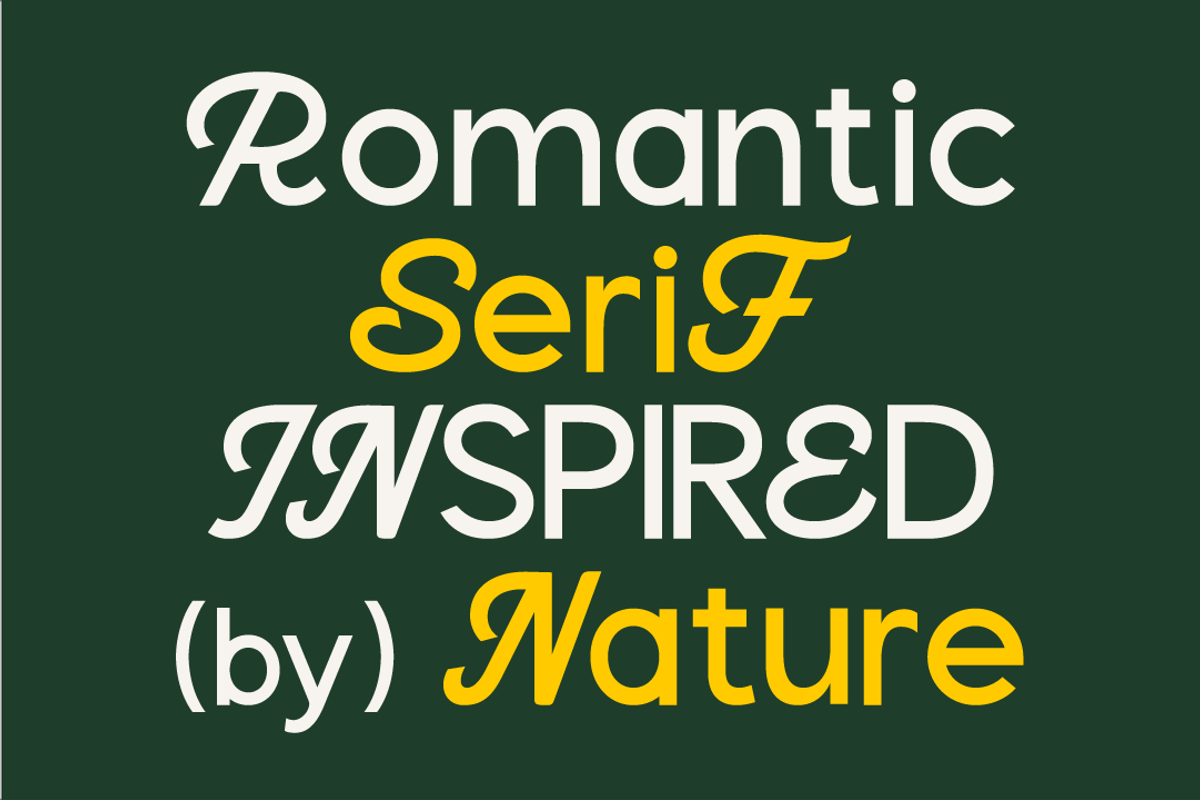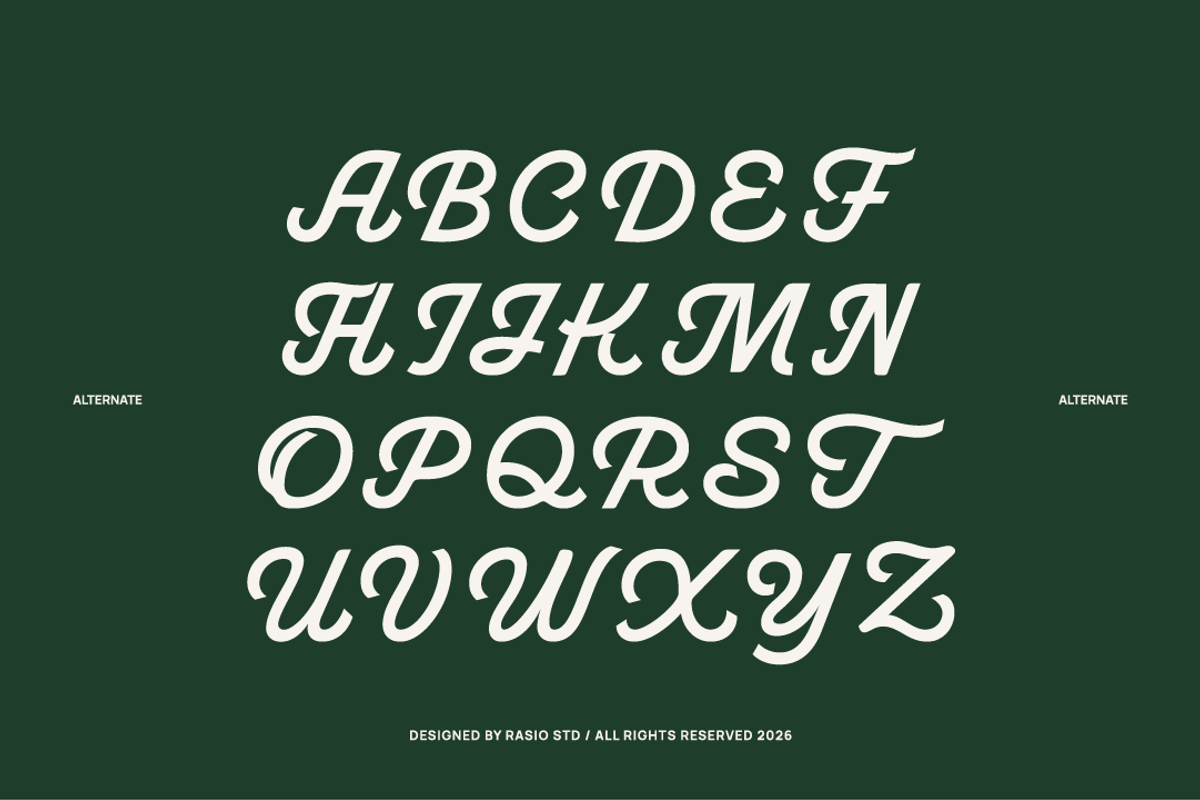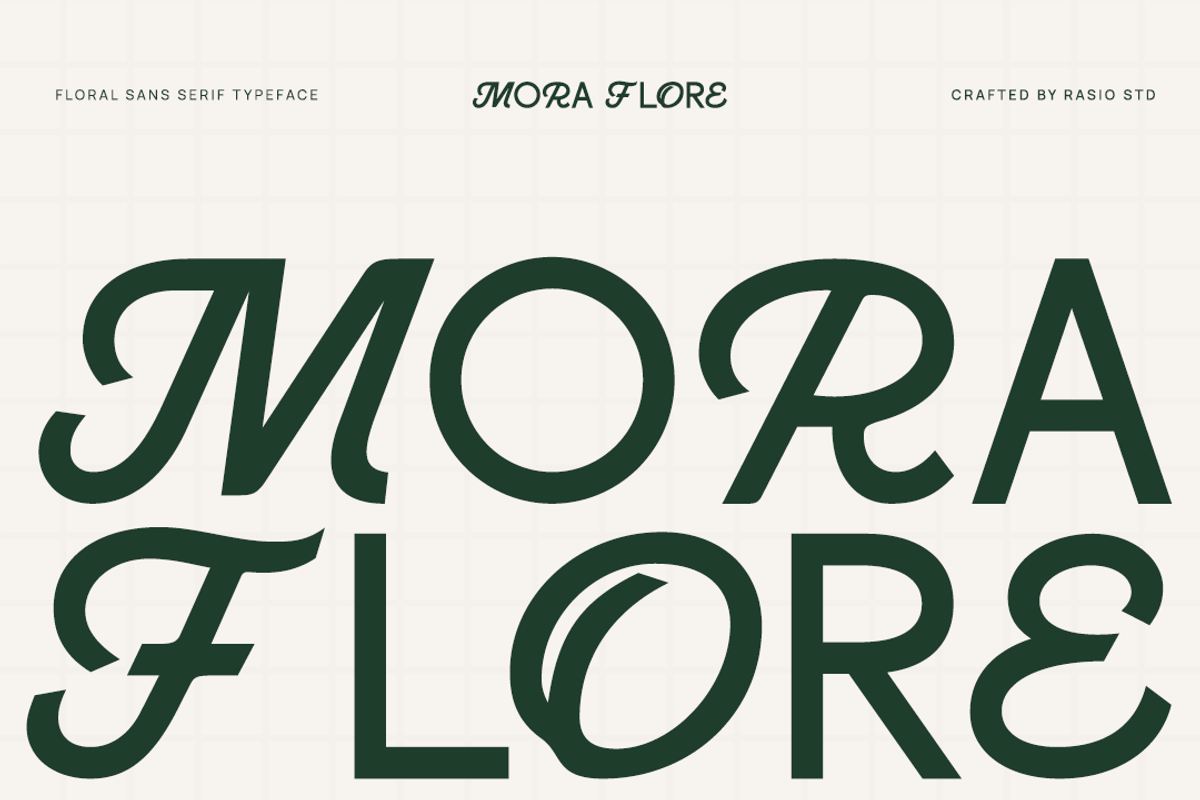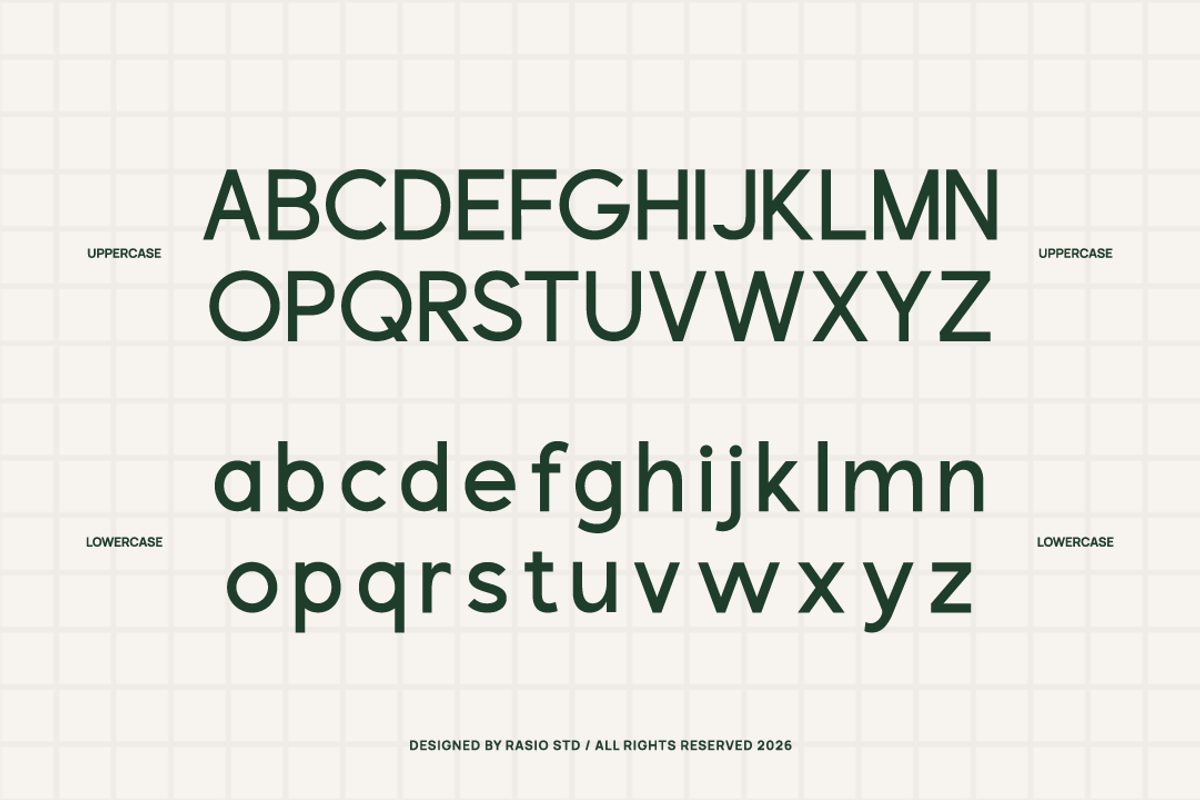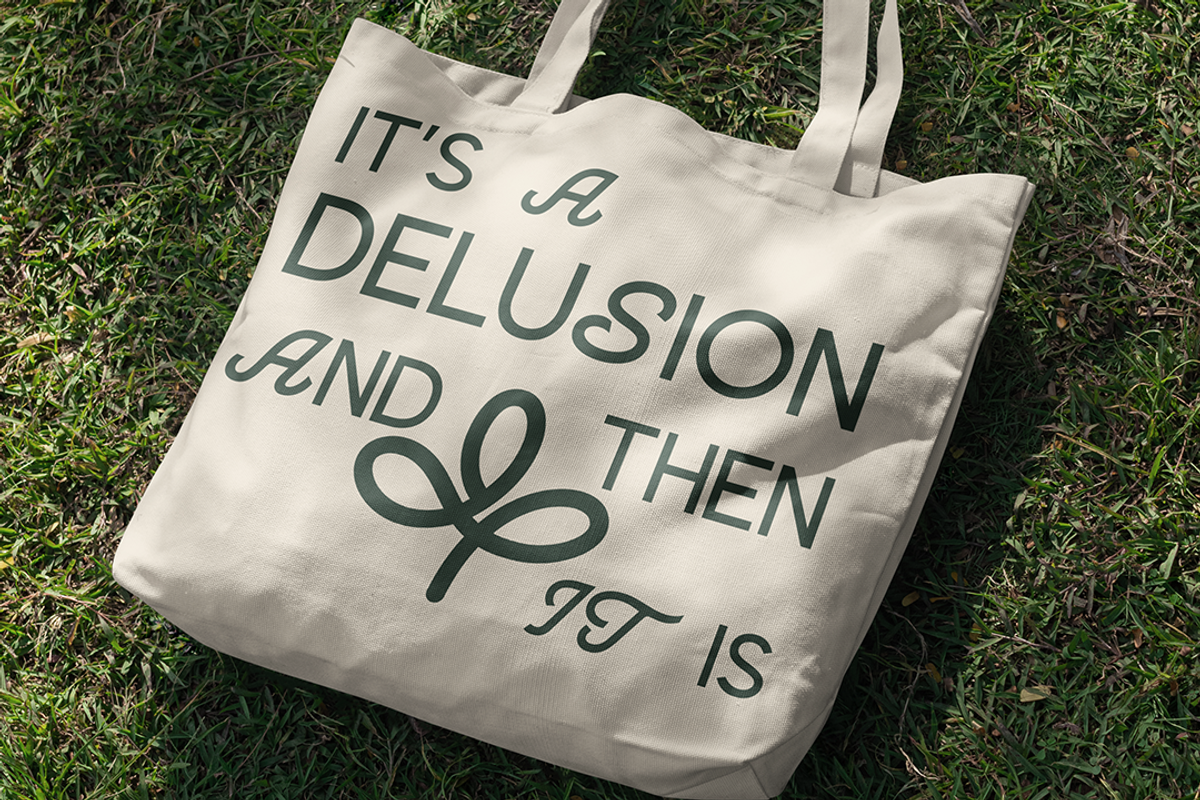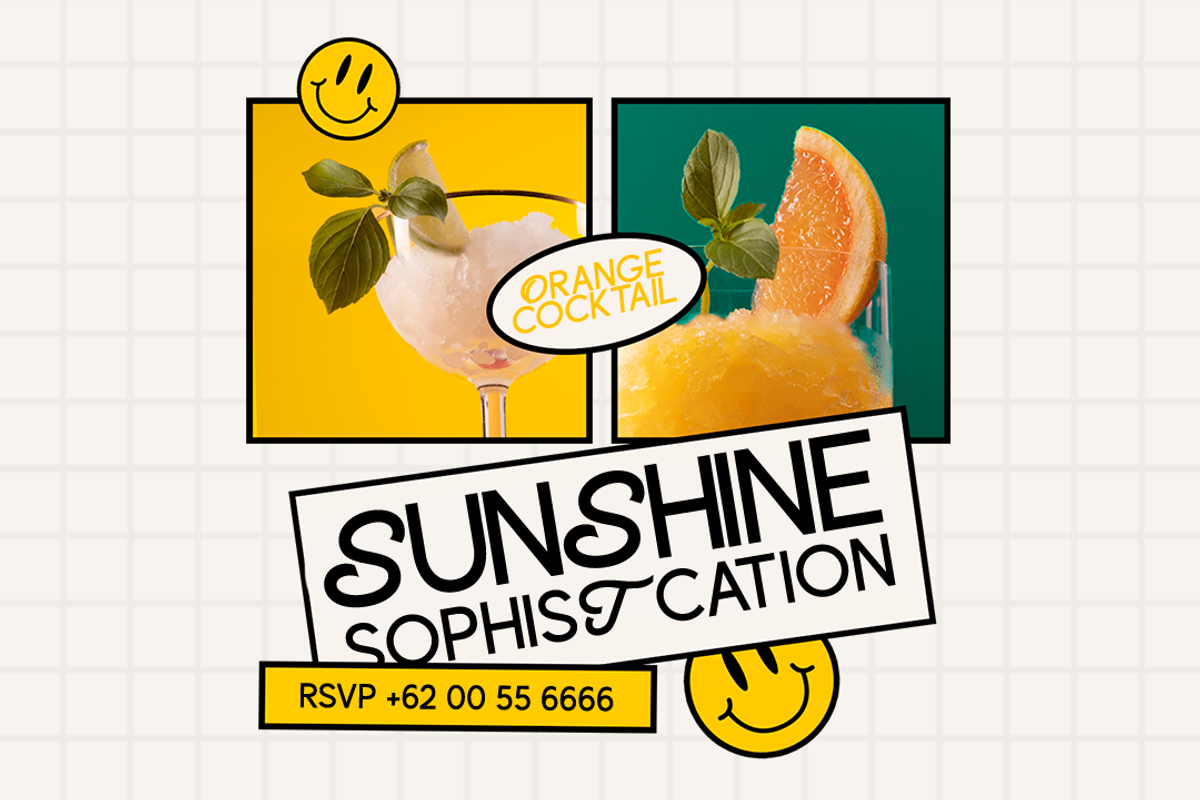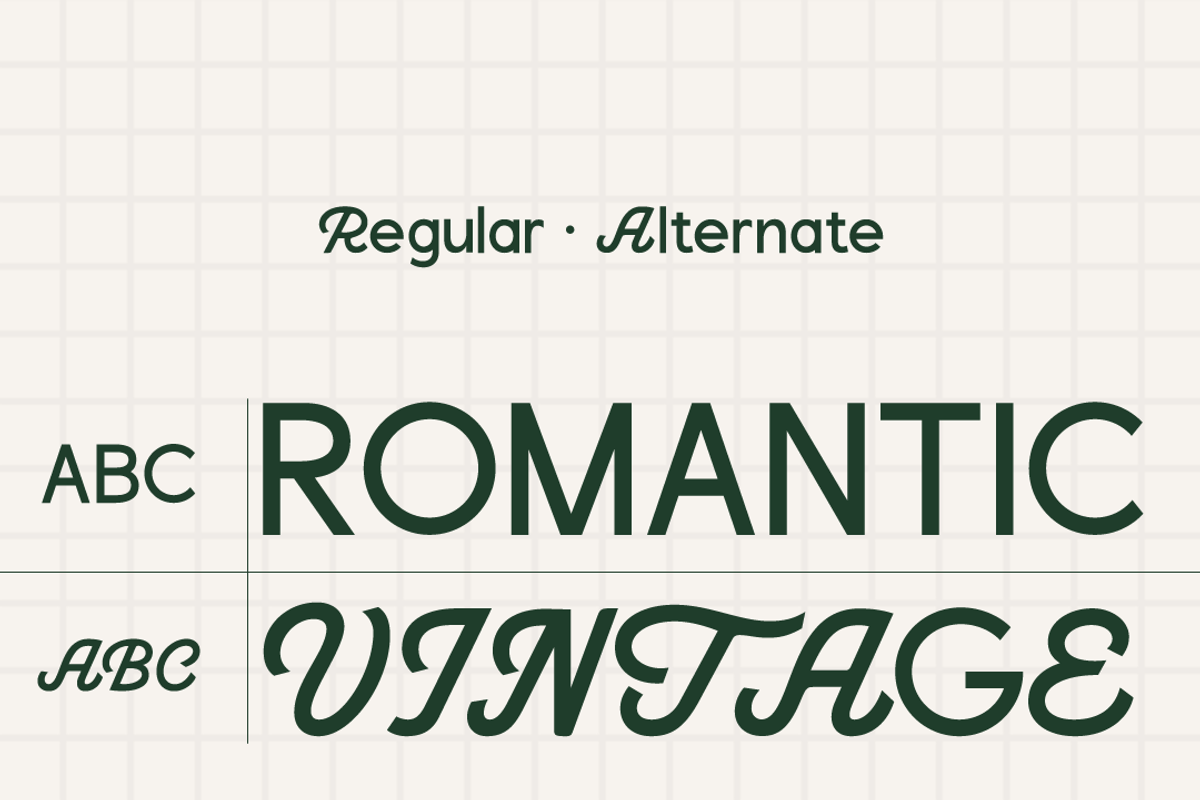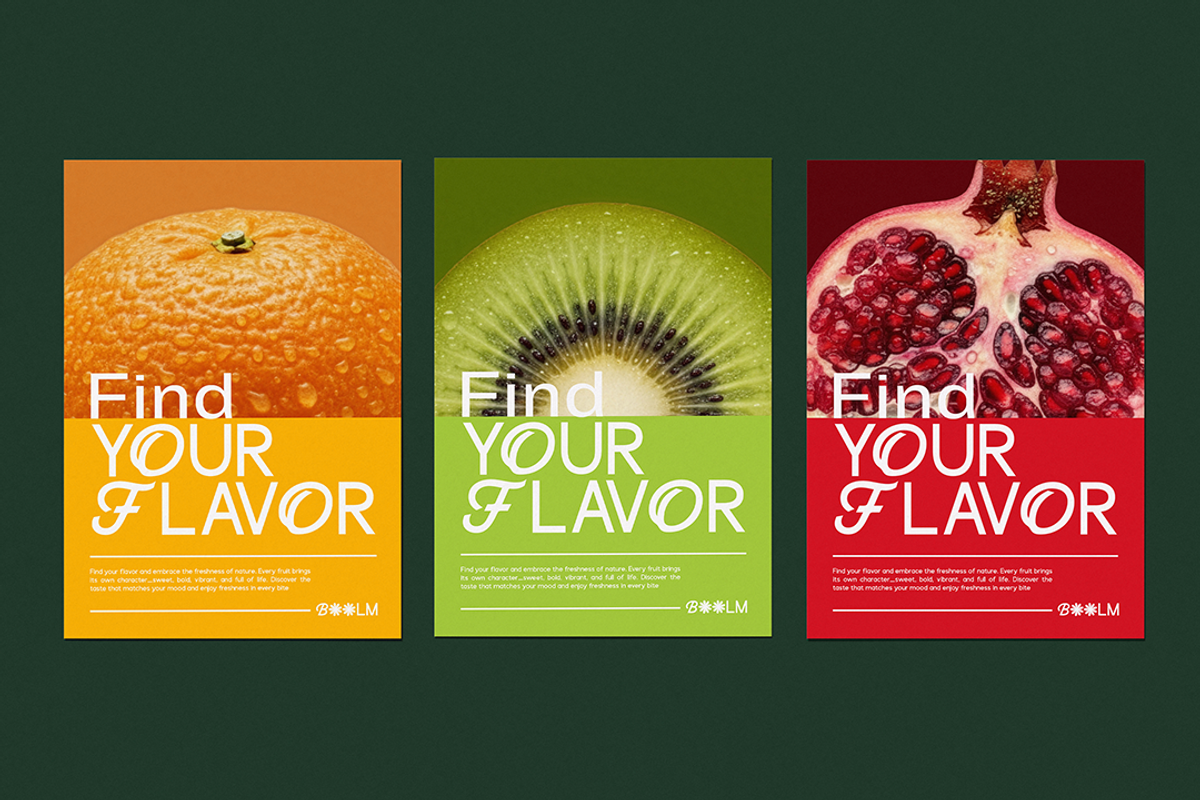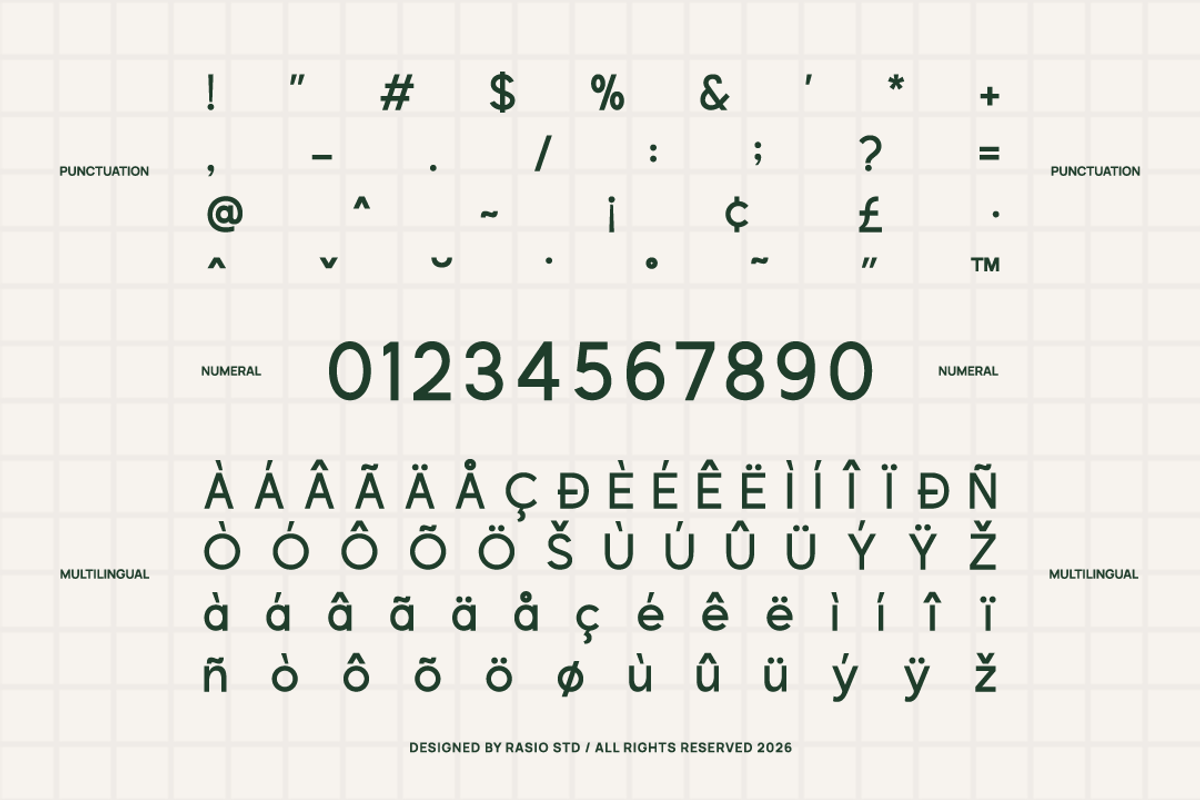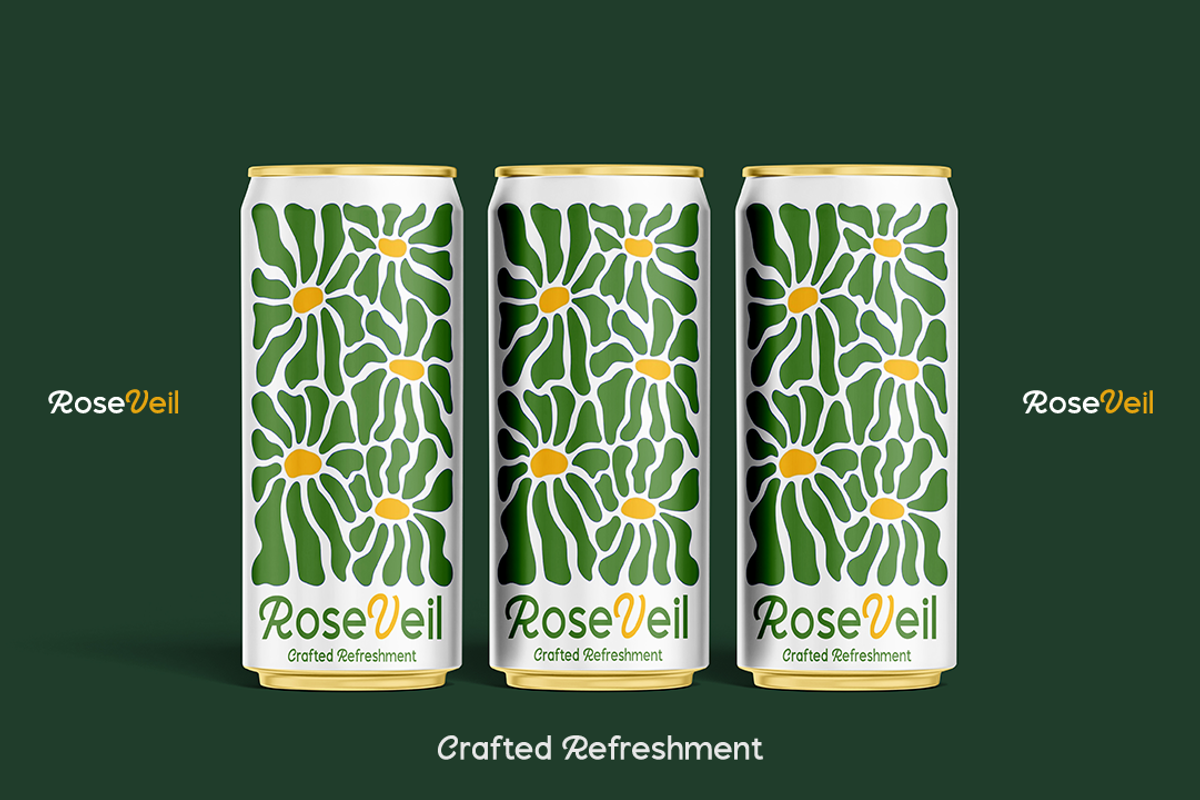
Mora Flore Floral Sans Font
Mora Flore is a decorative sans serif typeface featuring subtle floral-inspired curves and expressive character details. The design combines a clean structural base with soft organic accents, creating a balance between modern clarity and playful sophistication. It includes uppercase, lowercase, numerals, punctuation, and multilingual support.
Mora Flore is highly relevant for creative branding, lifestyle products, fashion campaigns, café and beverage packaging, event posters, social media graphics, and editorial headlines. Its expressive floral curves and bold presence make it perfect for projects that need a fresh, cheerful, and distinctive visual identity while maintaining modern structure.
- Clean sans serif foundation blended with soft floral-inspired curves
- Subtle organic cuts and decorative strokes for a playful personality
- Smooth rounded terminals that enhance friendliness and readability
- Balanced proportions with bold, confident letterforms for strong display impact
- Comfortable spacing optimized for headlines, branding, and creative layouts
- Brand identities that want a fresh, playful, and distinctive tone
- Café, beverage, and lifestyle packaging with fun visual character
- Posters, headlines, and editorial layouts that need bold personality
- Event invitations, party themes, and creative merchandise
- Social media graphics and marketing visuals with cheerful, modern style